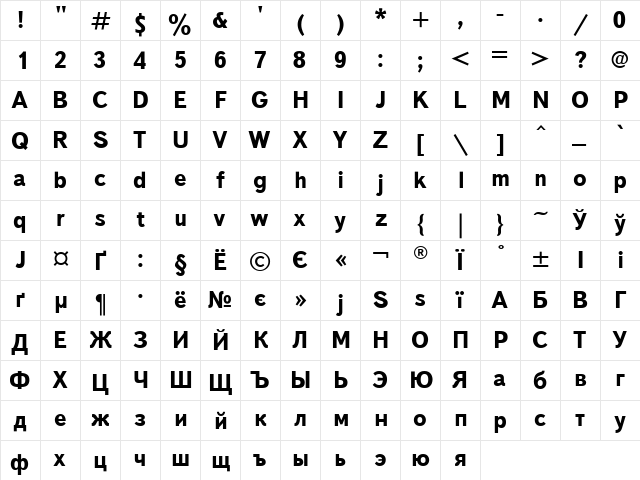
UkrainianTextBook Bold
Design Context for UkrainianTextBook Typeface
UkrainianTextBook takes a measured approach to typography — its balanced proportions and neutral character make it a reliable workhorse for both digital and print work. Its bold stroke weight gives it real presence on the page.